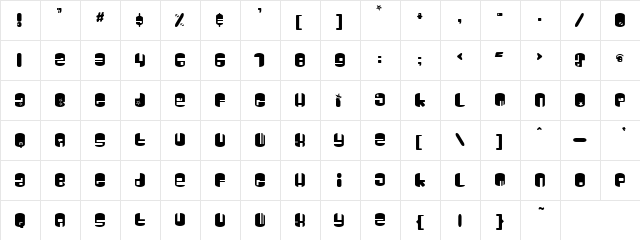
Rex Regular
Design Context for Rex Typeface
Rex is a composed and adaptable typeface that performs quietly and consistently across a wide range of design contexts.